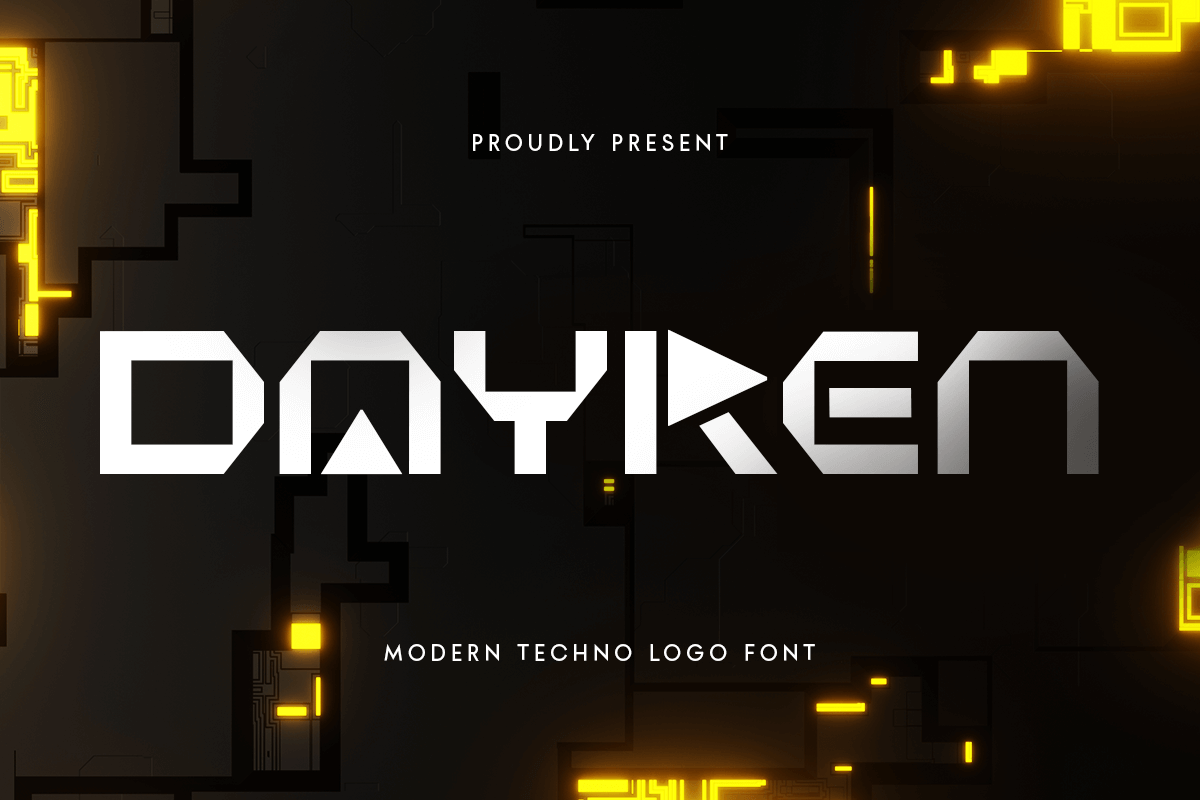
Dayren
-Modern Techno Logo FontDayren - Modern Techno Logo Font
DAYREN is a modern techno logo font built for brands that live in the future. With its smooth geometry, sharp detailing, and modern minimalism, DAYREN gives your design a high-tech edge while maintaining excellent readability.
Whether you're designing a startup logo, app interface, gaming title, or a futuristic headline, DAYREN delivers a clean, innovative aesthetic that commands attention. Inspired by digital technology and sci-fi atmospheres, this font blends condensed proportions with a futuristic tone to support bold creative expression. Perfect for logos, interfaces, posters, and high-tech branding, DAYREN is where precision meets personality.
DAYREN – Modern Techno Logo Font Features
Sleek modern techno letterforms
Optimized for logos, headlines, and UI/UX
Futuristic, clean, and versatile design
Bring a futuristic pulse to your branding with DAYREN – a modern techno font built for tomorrow. 🚀💡